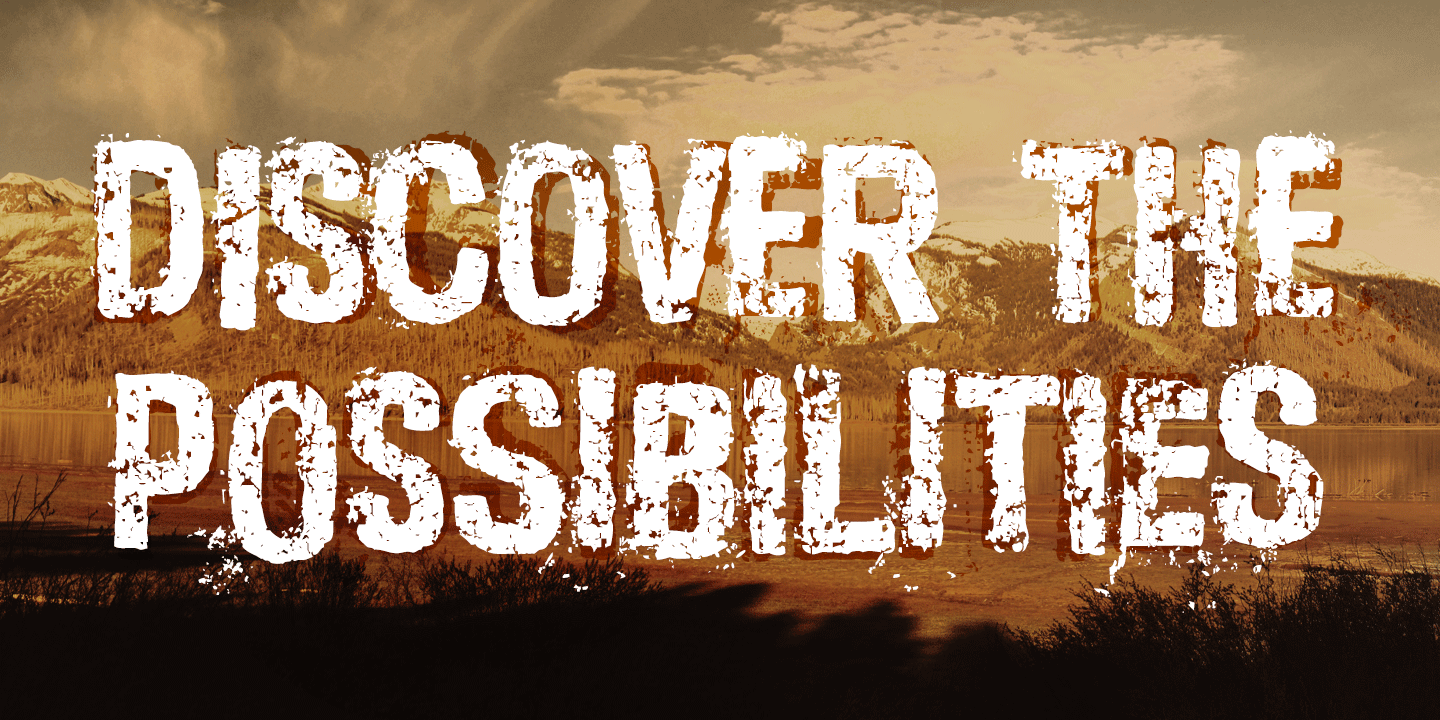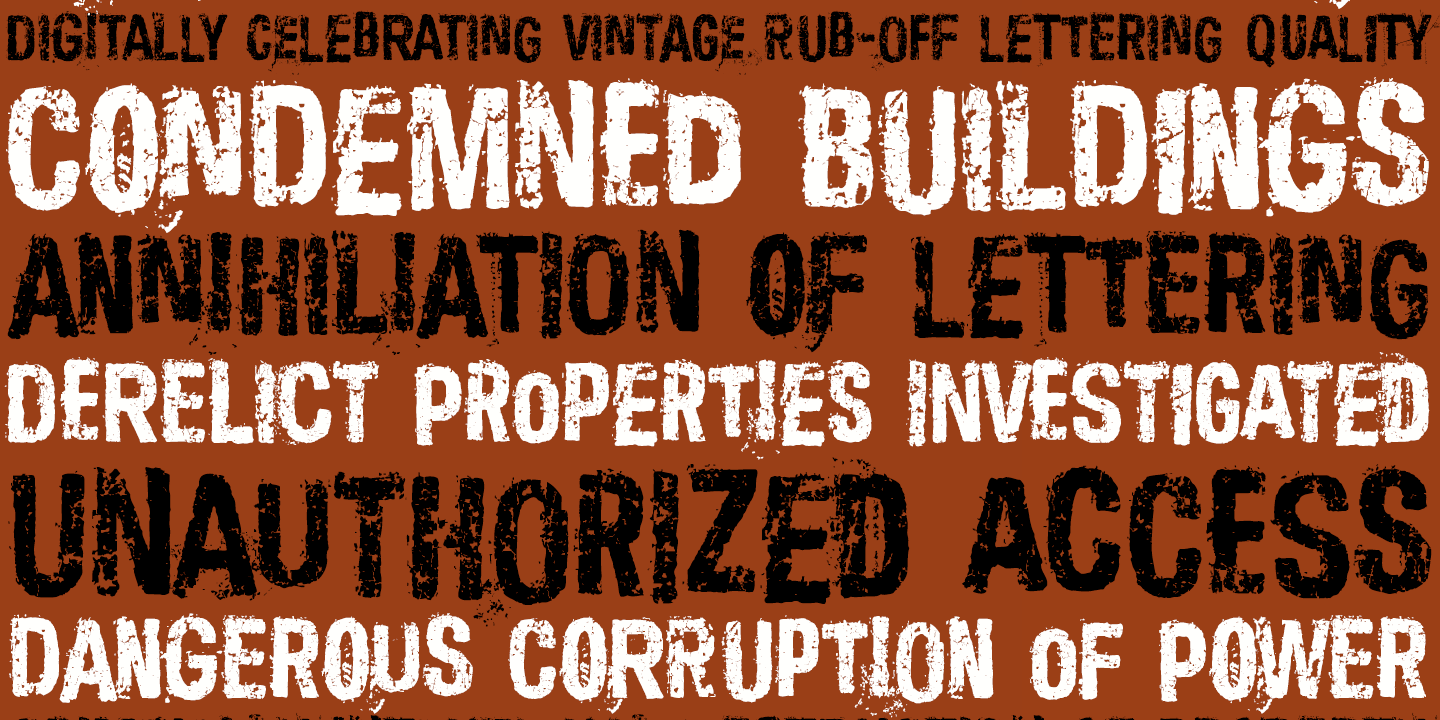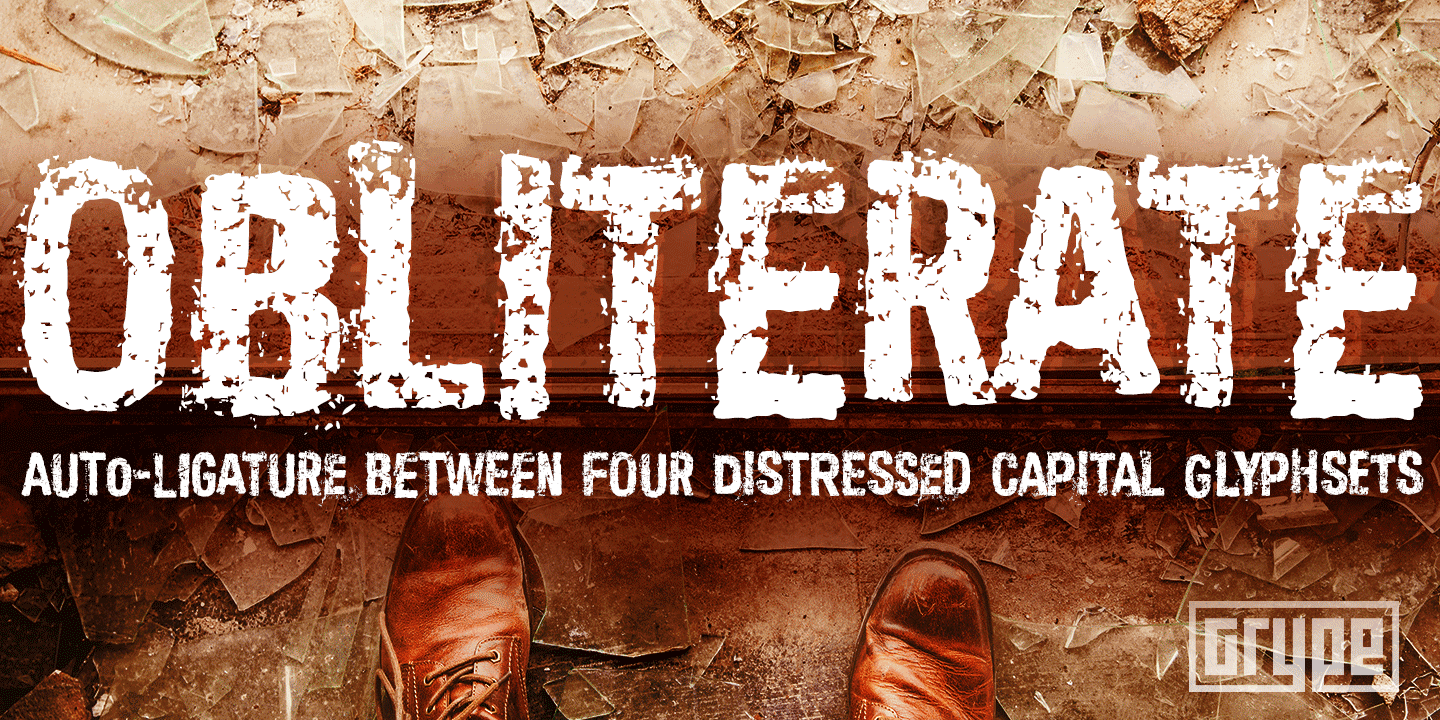
Obliterate
About Obliterate
Obliterate is a self destructing sans-serif typeface created from old rub off typography sheets brought back from the brink of becoming landfill fodder. It contains four sets of capitals and one alternate set of numerals for a randomized look. 633 glyphs…